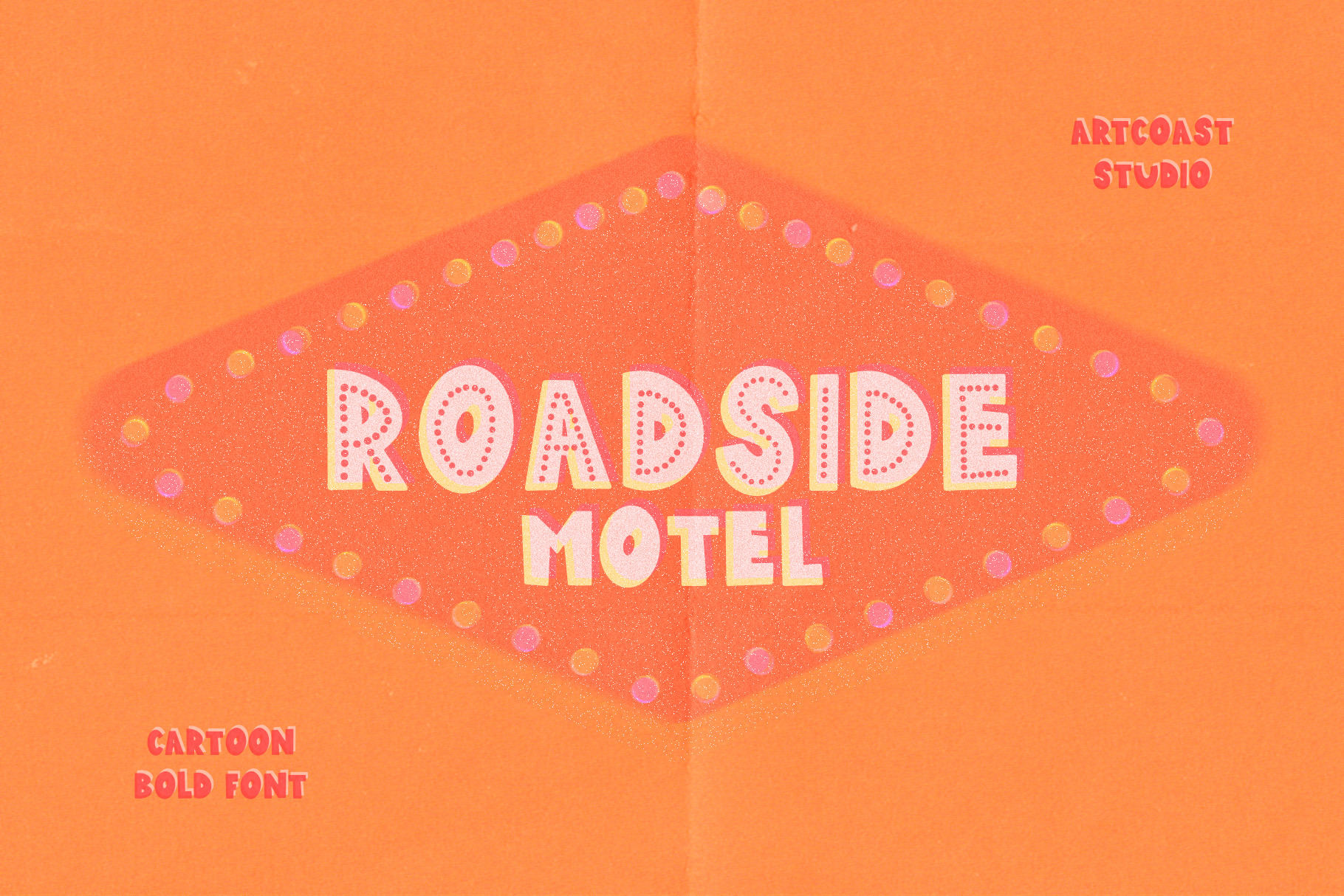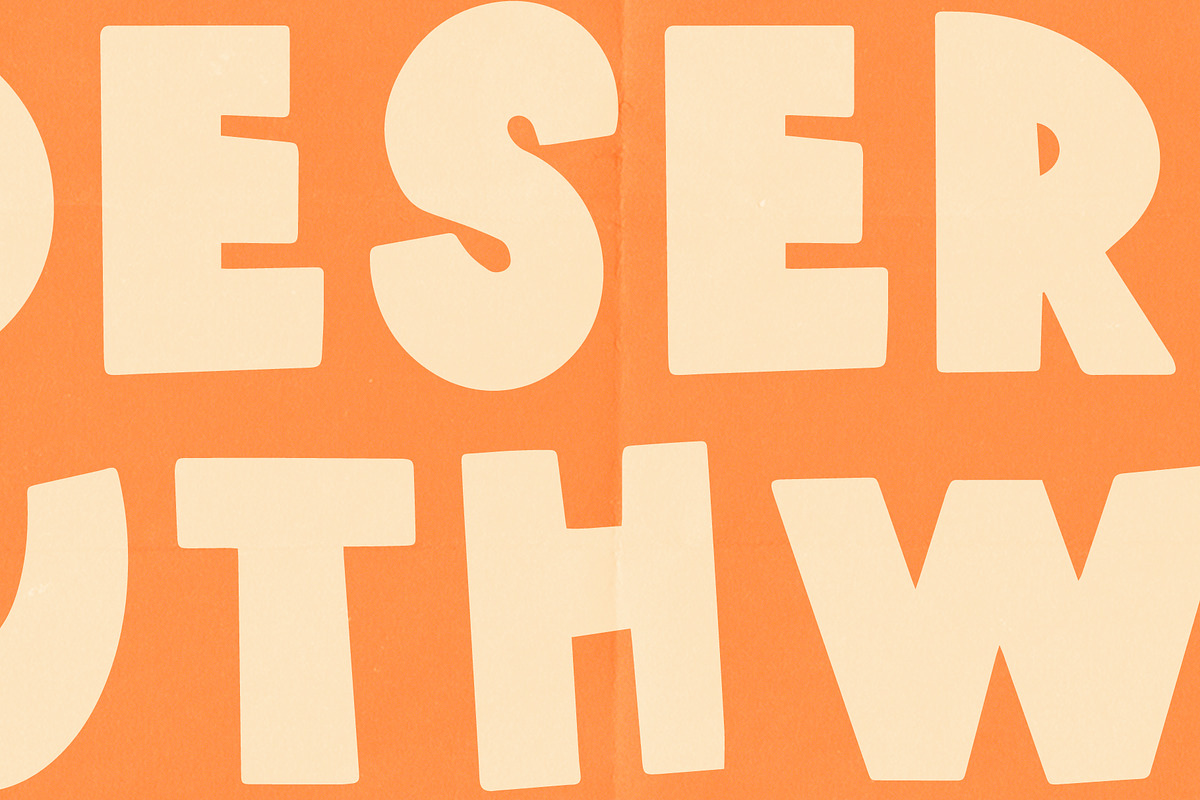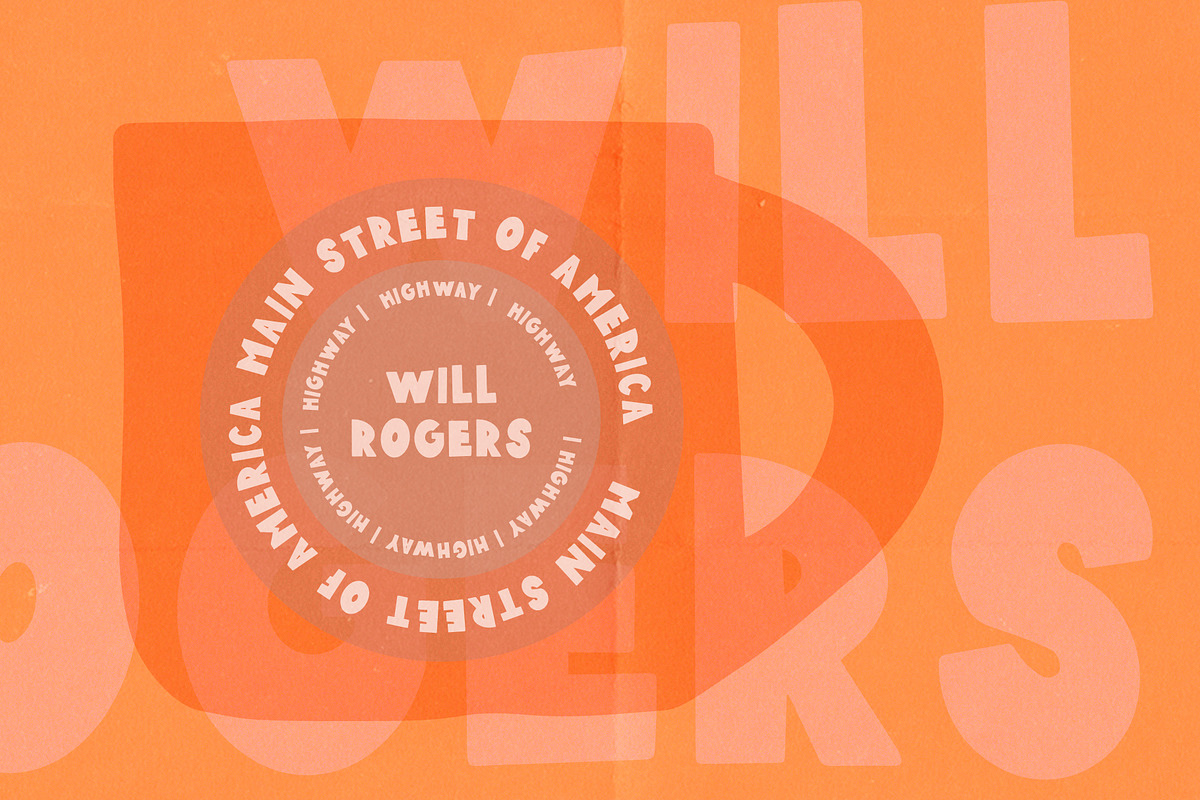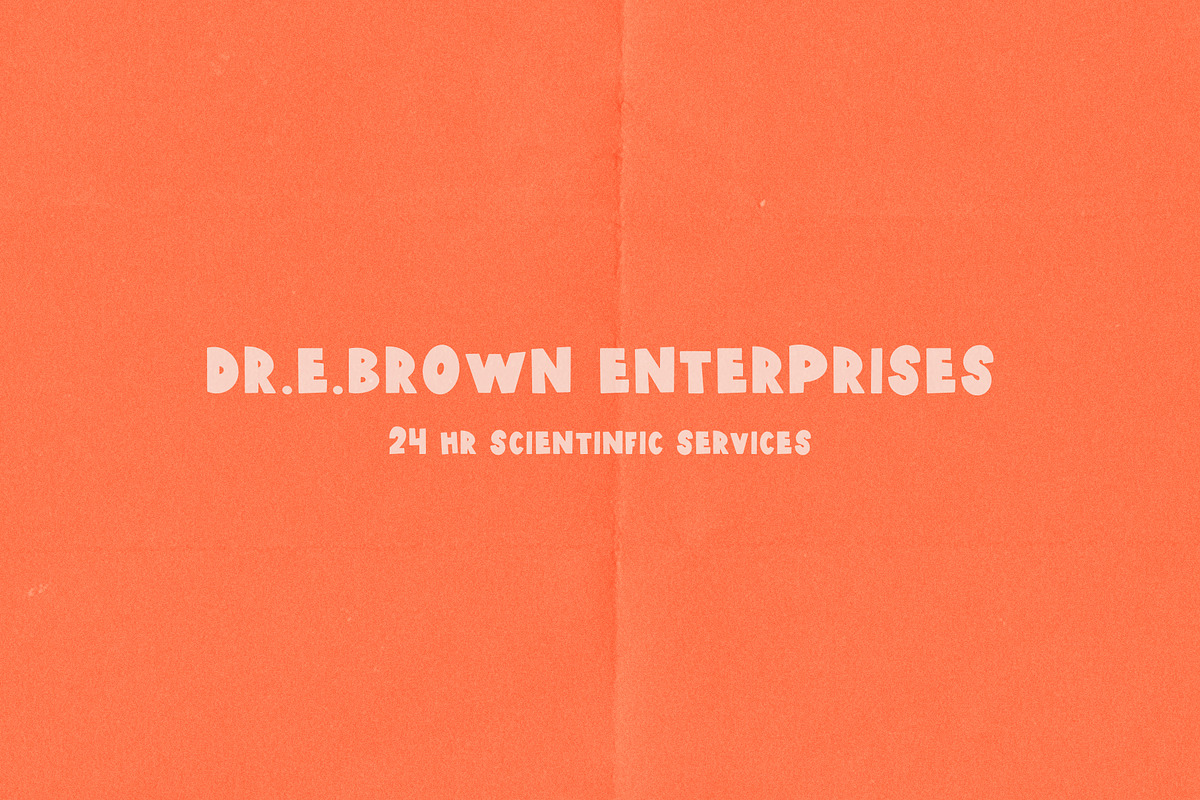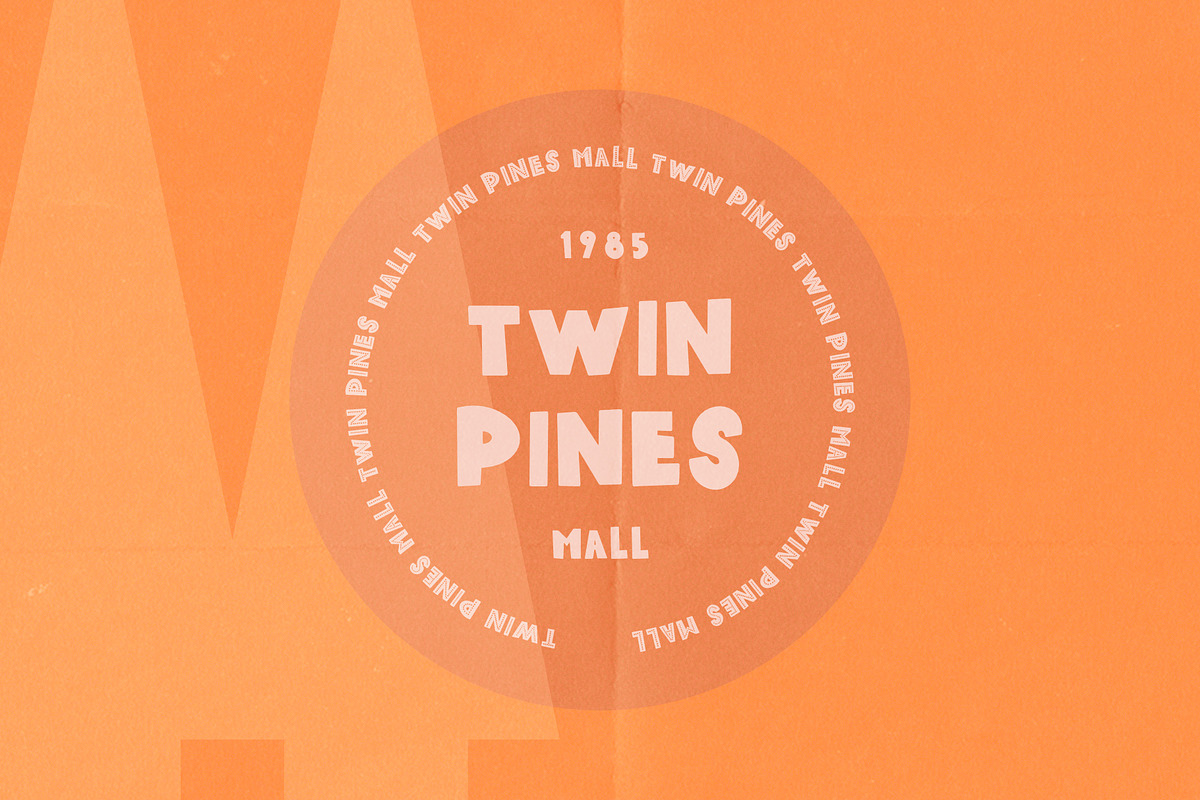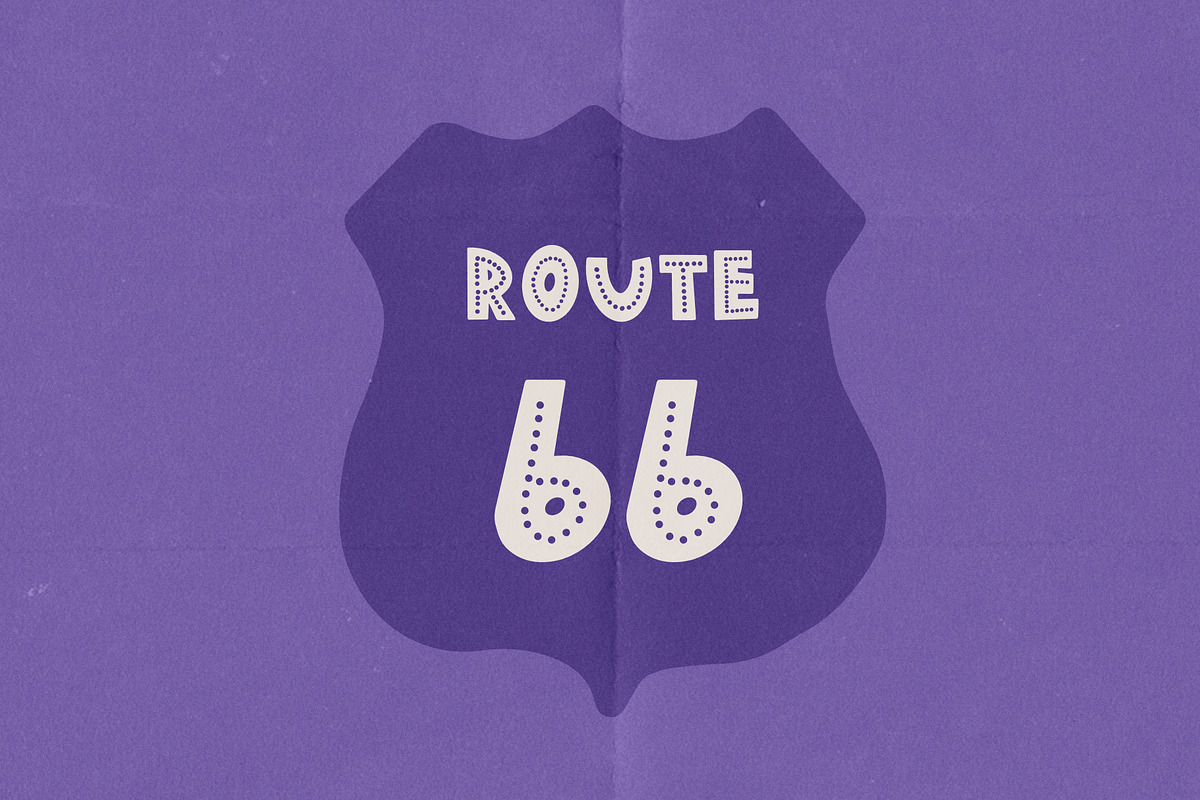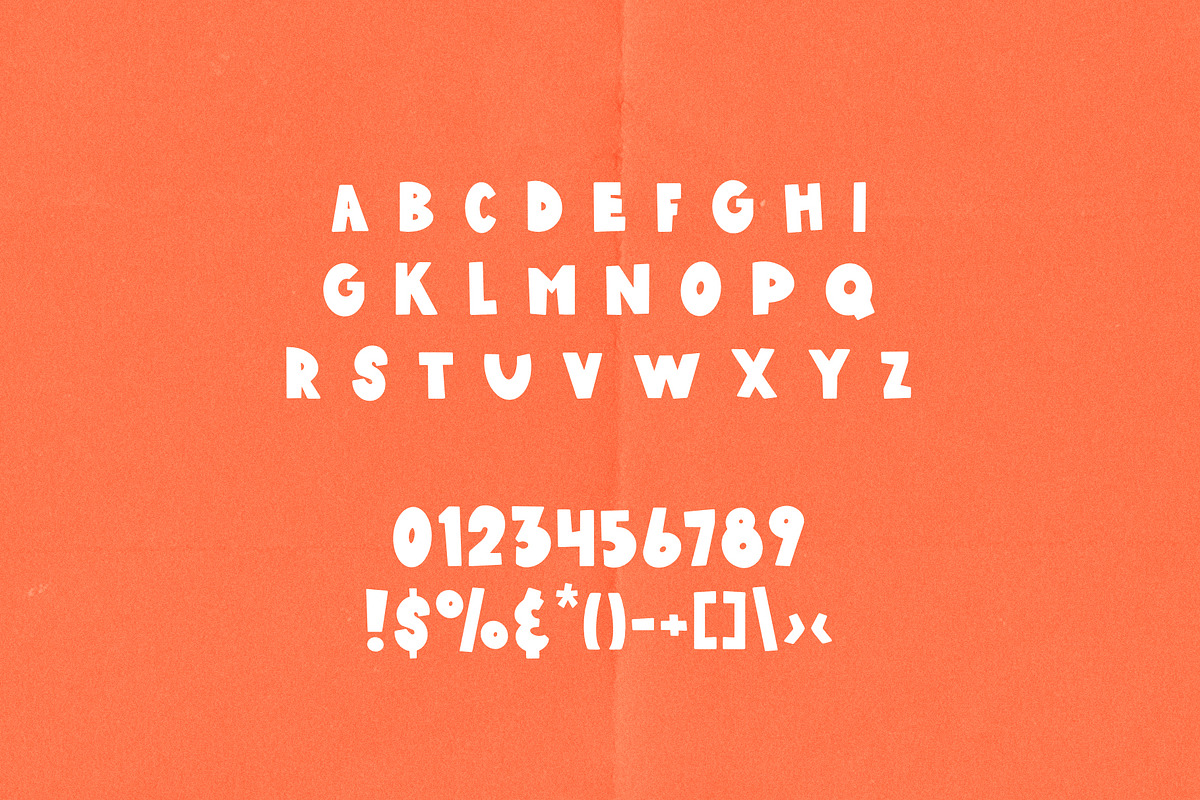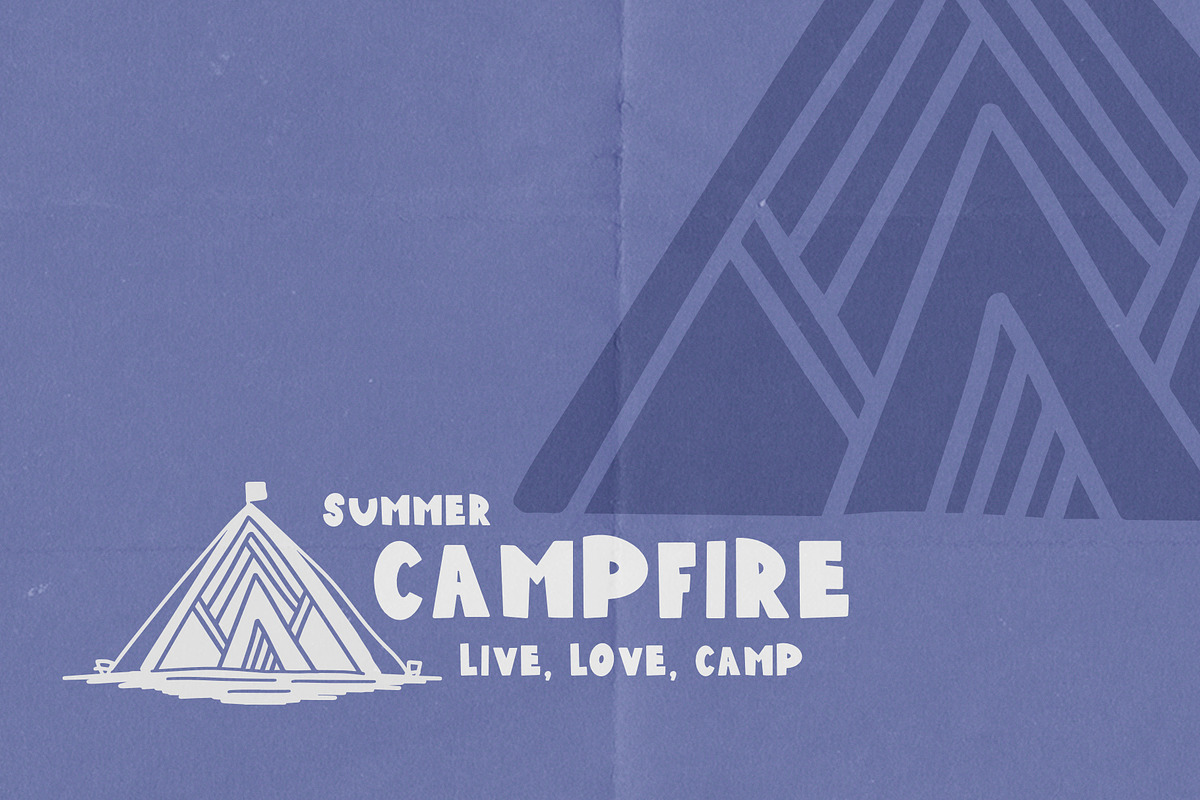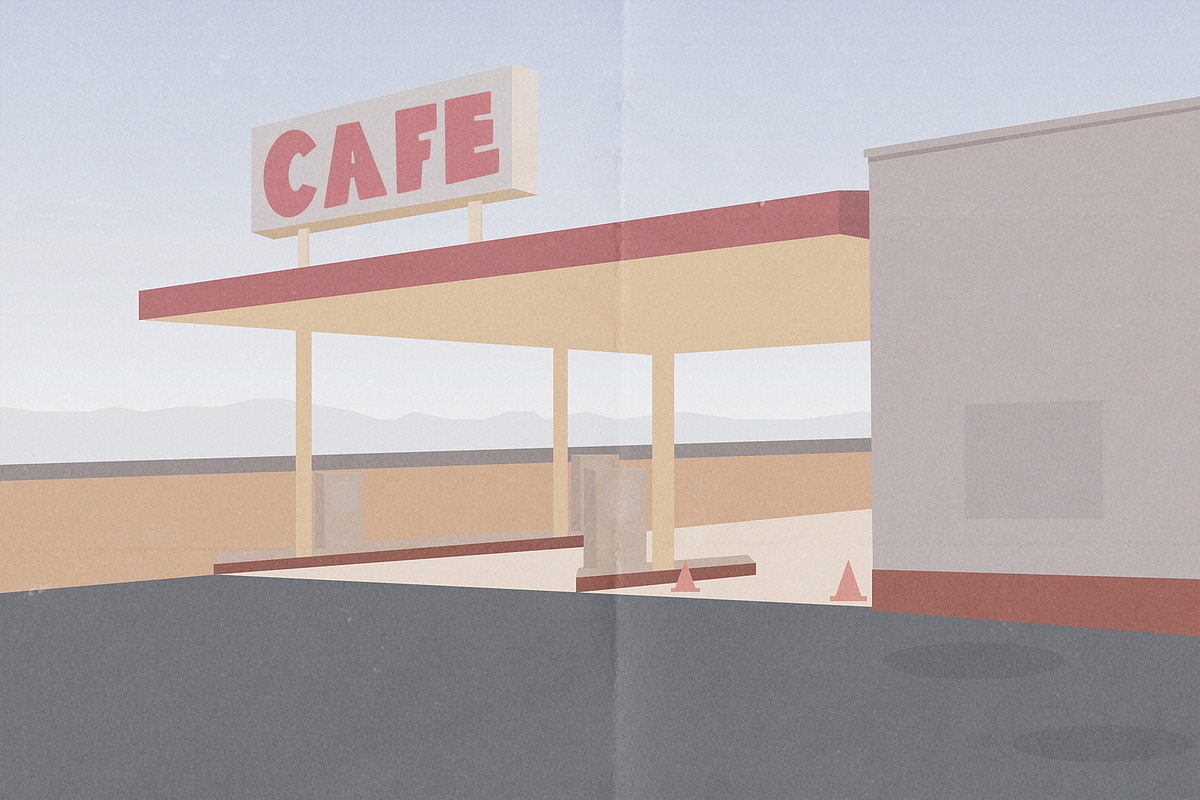
Roadside Motel | Display Font
Introducing "Roadside Motel" - a handcrafted sans serif font that infuses your designs with an artisan touch. Its versatility spans across various applications, from branding and packaging to apparel and digital designs. Whether you're crafting a unique typography for editorial covers or designing apparels, this font seamlessly merges vintage allure with contemporary style. Let "Roadside Motel" elevate your design game, making each project distinctly yours.